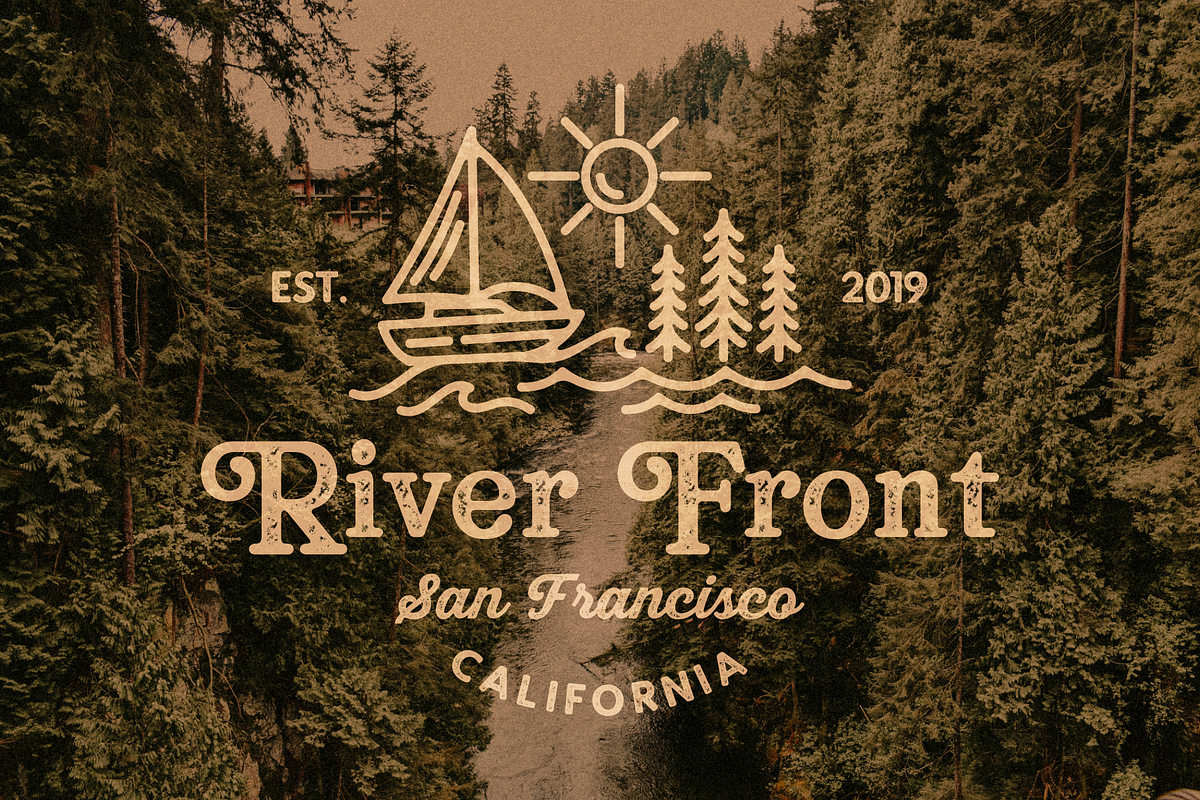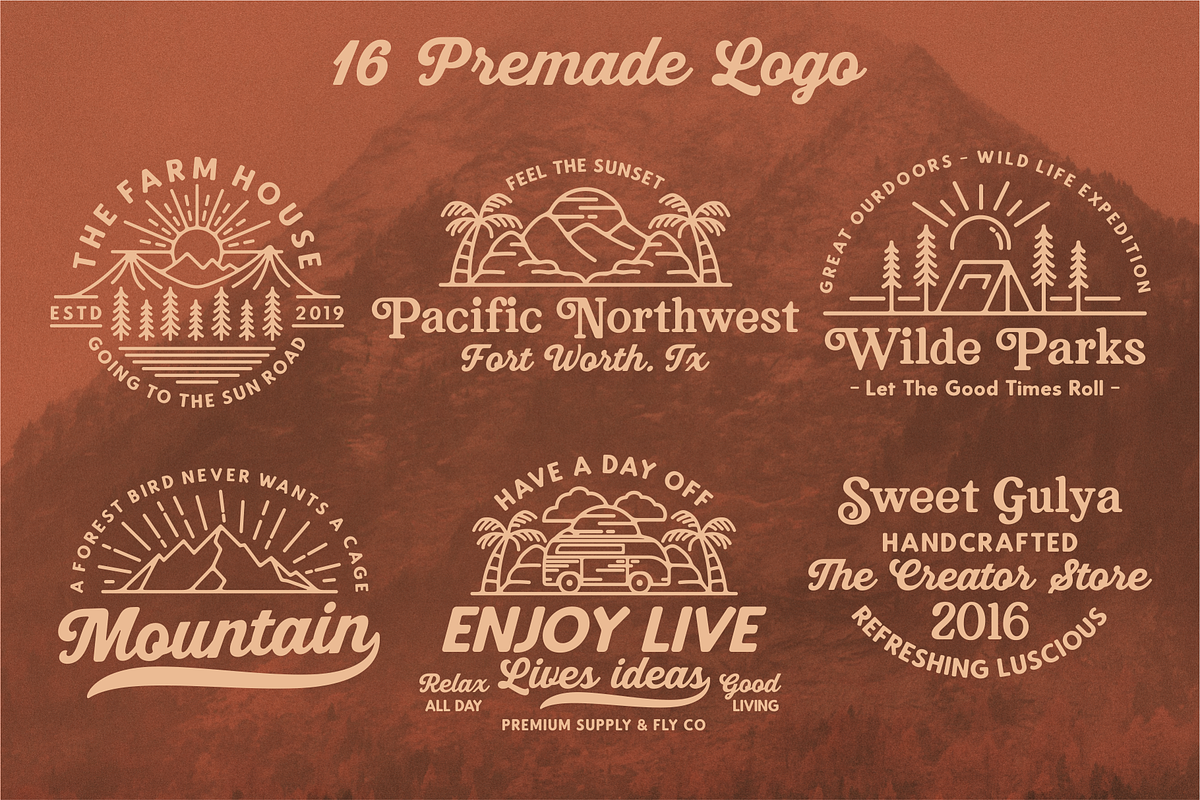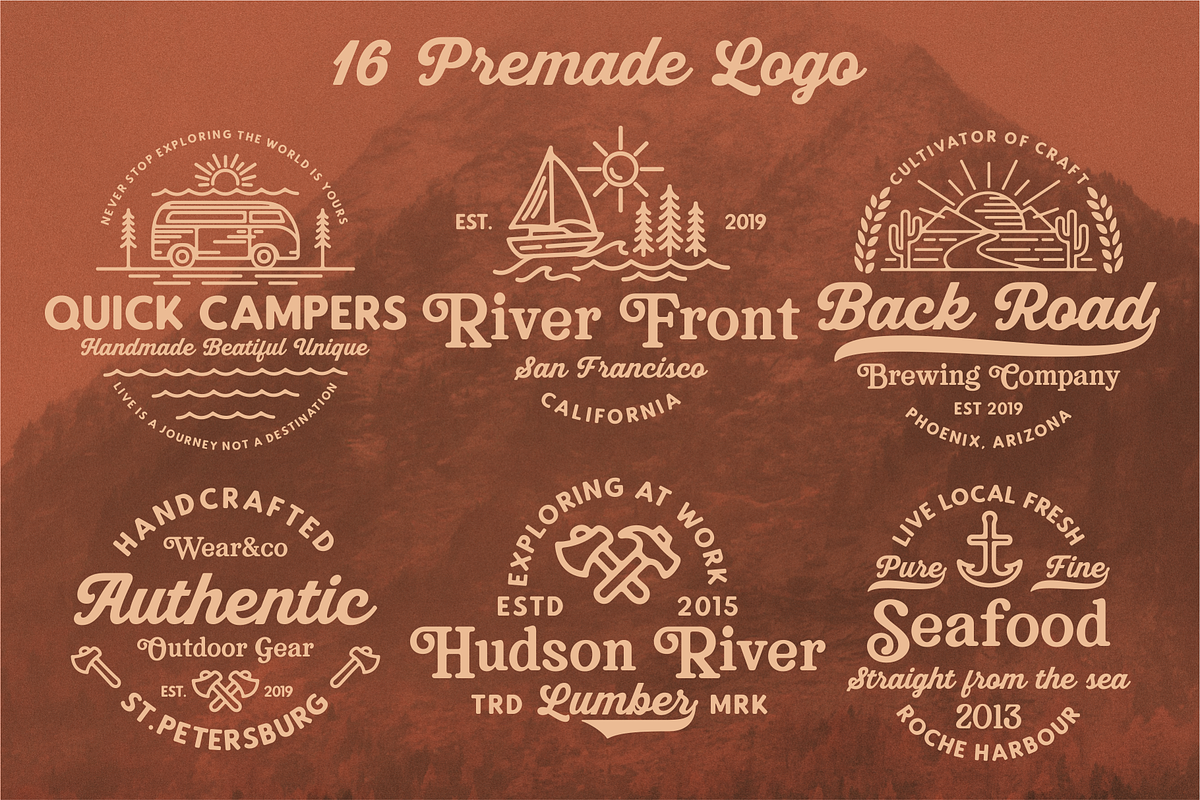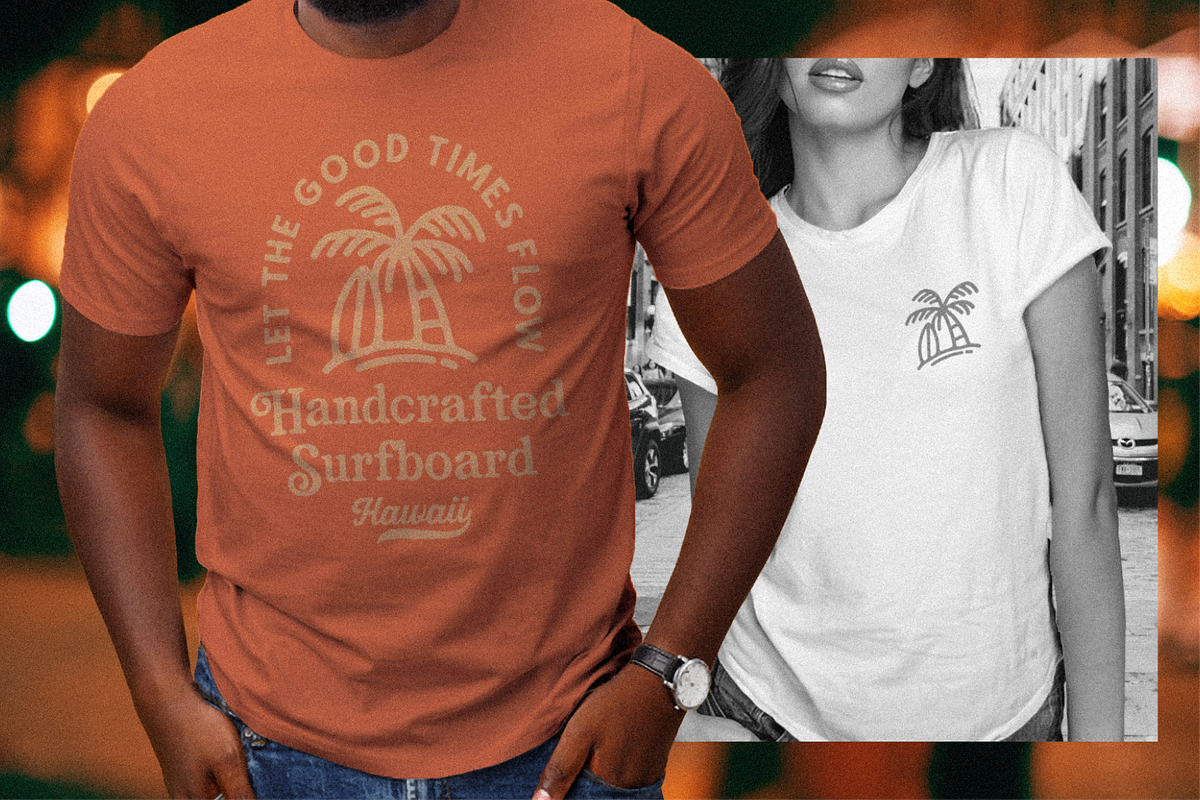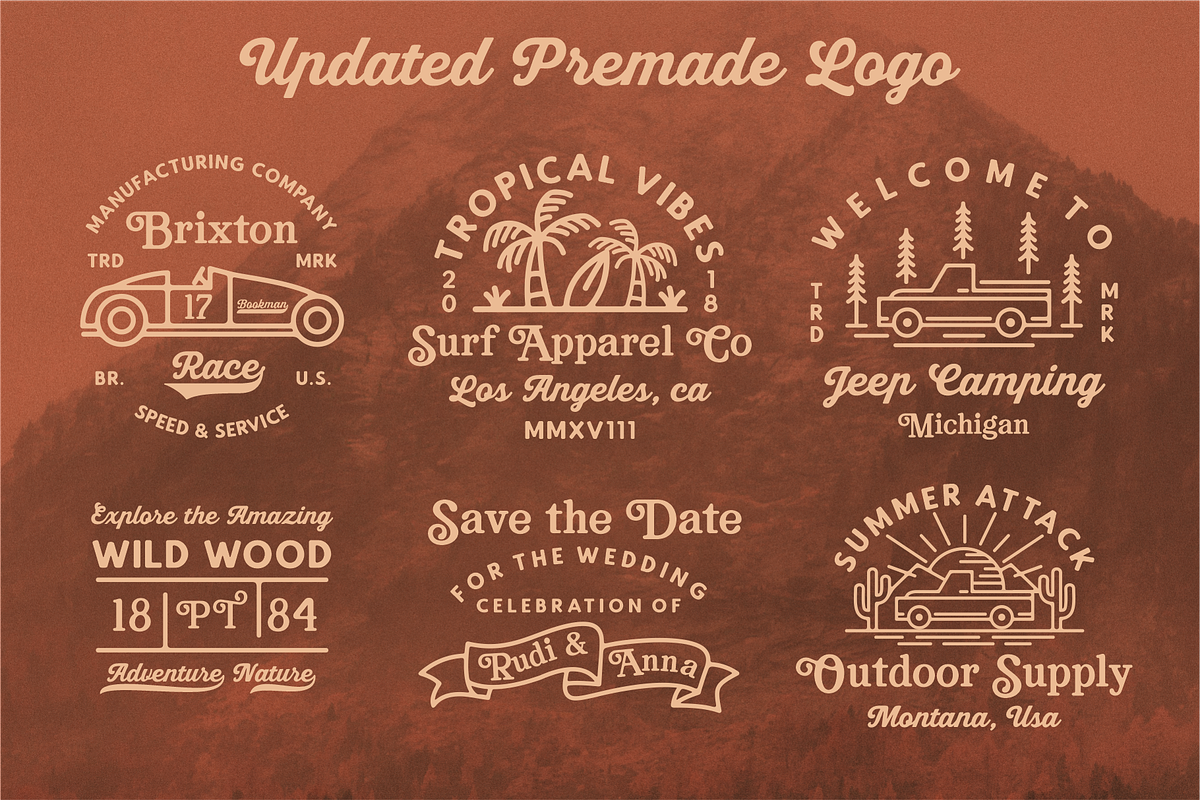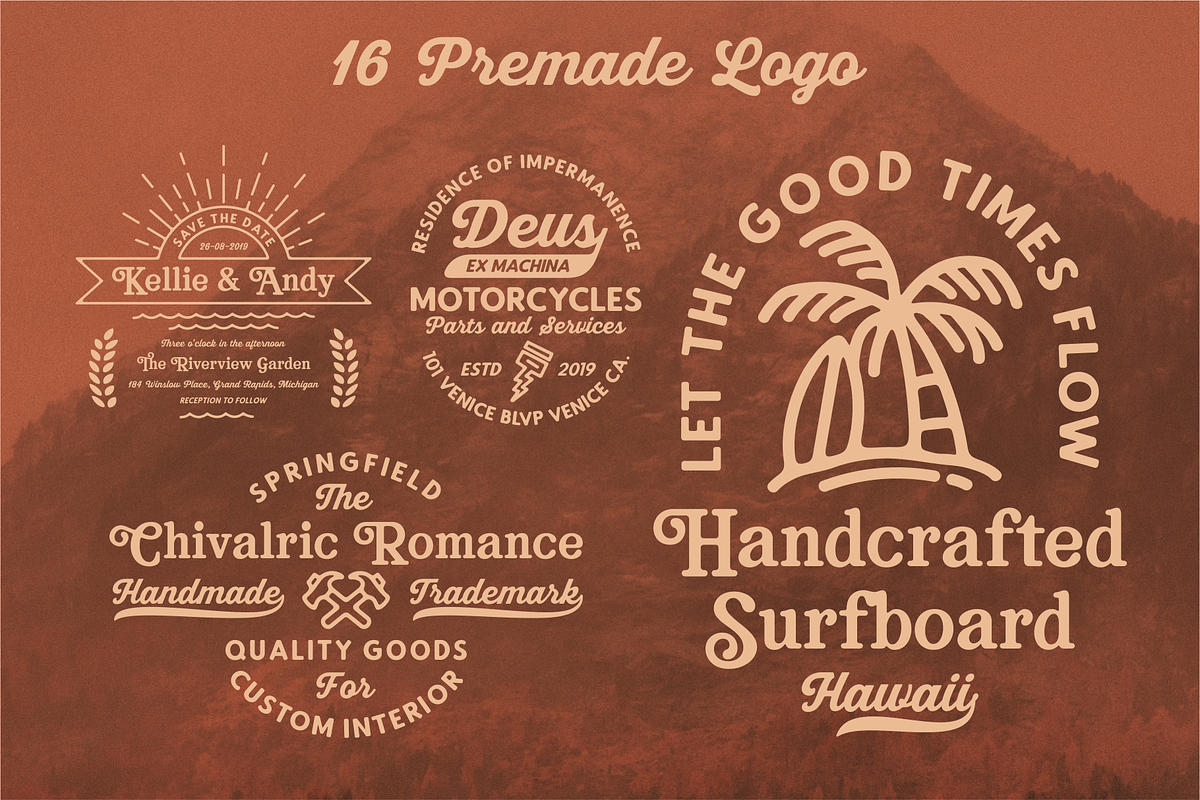
Bookman Font Collection
Introducing Bookman Font Collection includes 8 fonts that have different type (Serif, Sans, Script) and have two styles (Clean and Press). Bookman Font Collection was designed carefully to create elegant typographic works. Furthermore the product contains a set of 16 editable logo templates for Adobe Illustrator (CS & CC) and includded hand-drawn Flatline Designs. It would be a perfect choice to design t-shirt, Logos, posters and magazine prints, eye-pleasing typographic designs and more.
Extra hand-drawn Flatline Designs
6 Premade Logo and bundled with awesome flat line design.
Bookman Font Collection by RedyStudio fits naturally into Branding, posters, packaging, typography.